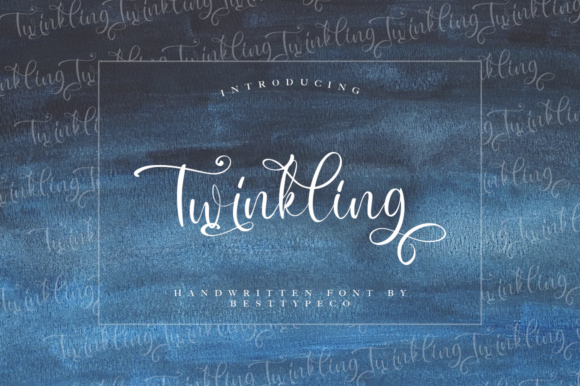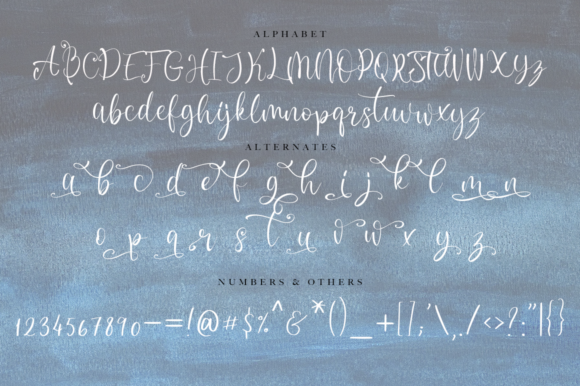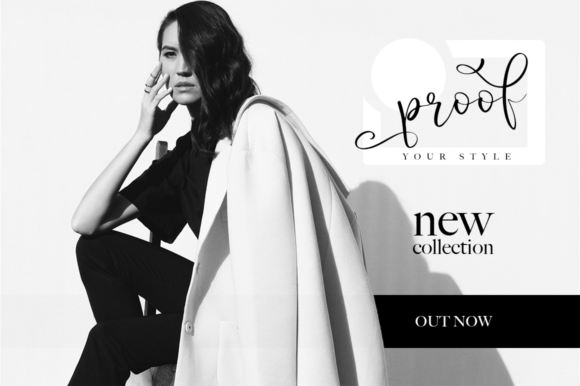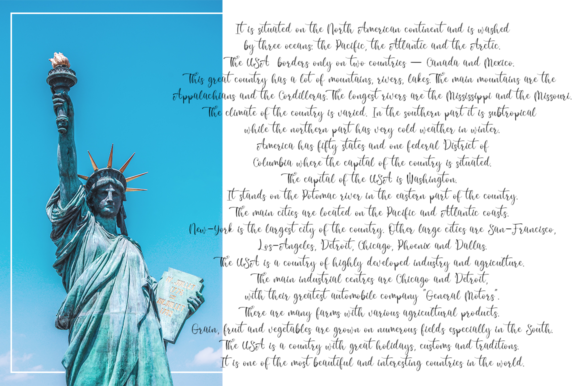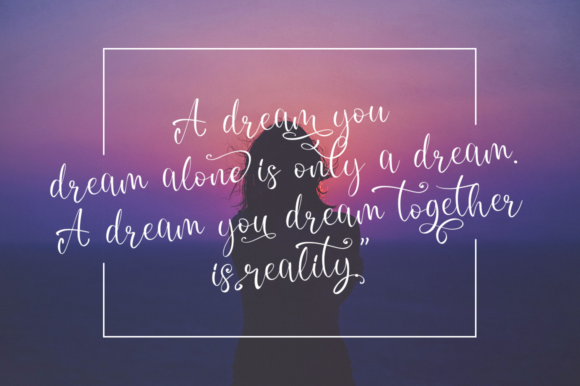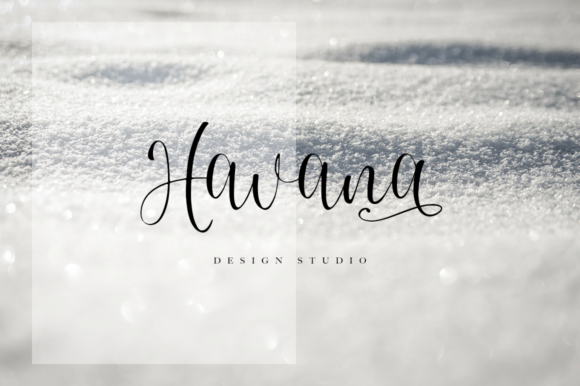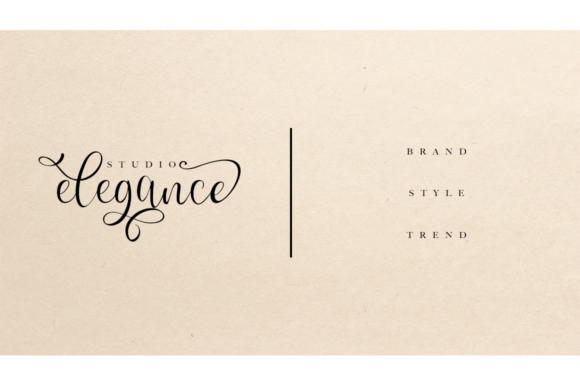
Twinkling Font
About Twinkling Font
Twinkling is a charming and magical hand-lettered script font. The playful rounded characters make it the perfect font for creating stunning calligraphy results. Twinkling comes packed with beautiful swashes, that will allow you to add a decorative touch within seconds. Get inspired by its authentic feel and use it to create gorgeous invitations, modern stationary art, eye-catching social media posts, cute greeting cards, and much more!